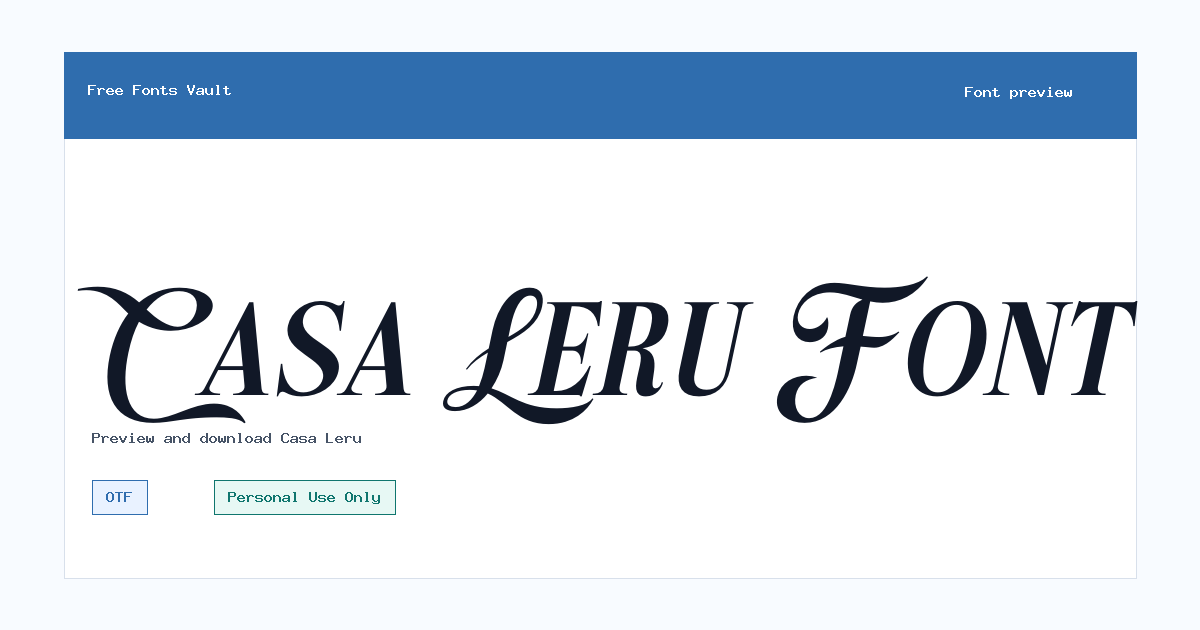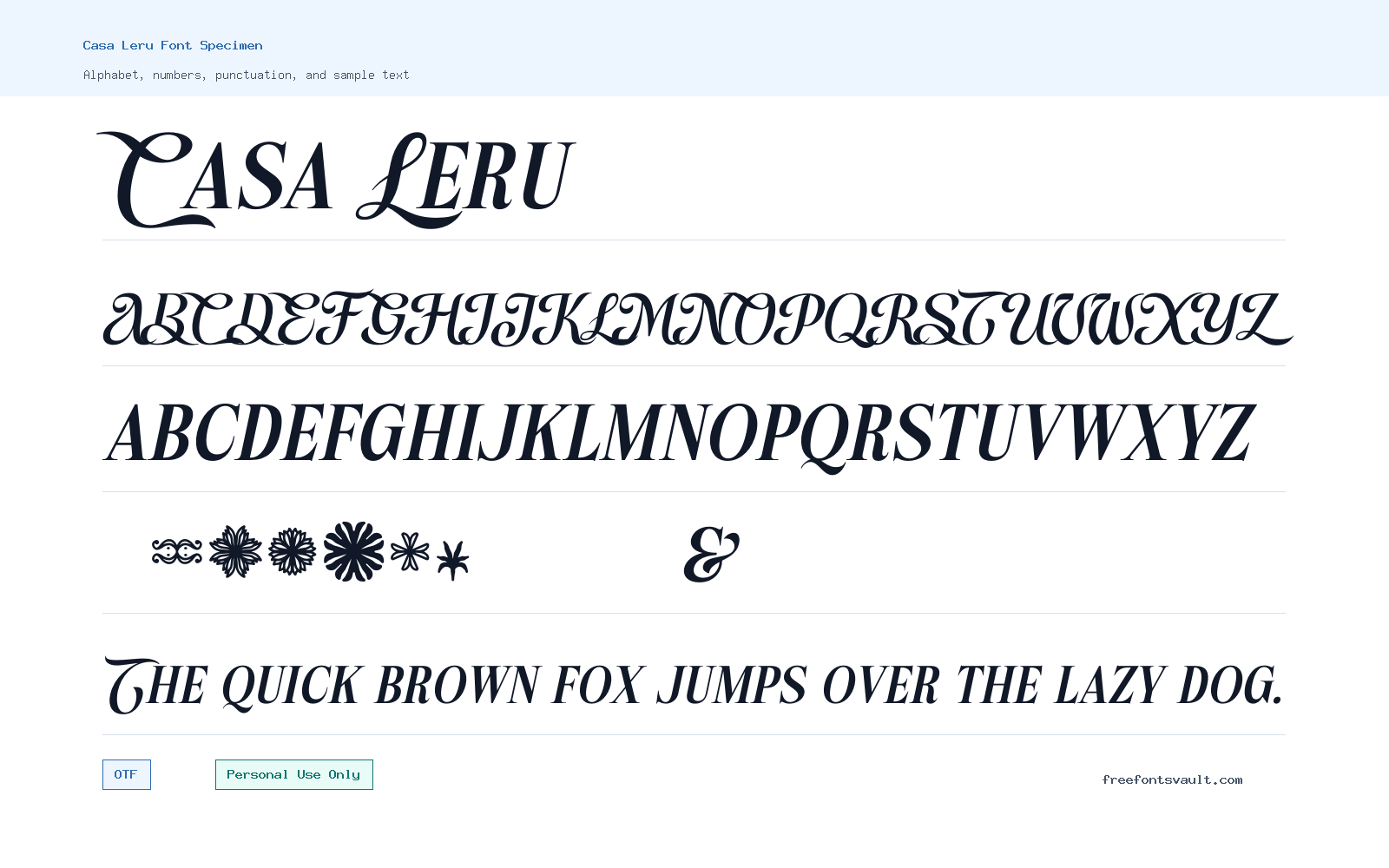
Casa Leru
Casa Leru font.
Casa Leru is an italic serif font with a graceful, slanted look that works best when you want text to feel refined without becoming too formal. It is suited to display settings such as titles, poster lines, branding drafts, invitations, and stylish web mockups.
About Casa Leru Font
Casa Leru has the character of a serif display face with an italic rhythm. The letterforms lean forward, giving words a sense of movement and elegance, while the serif structure keeps the font grounded and readable in short settings. Because the font file offered is an OTF italic style at regular weight, it is most useful for headlines, names, quotes, labels, and other short pieces of text rather than long paragraphs. Try it where a plain roman serif feels too static, but avoid relying on it for dense body copy where italic forms can slow reading.
For design work, Casa Leru can be a good choice for boutique-style logo concepts, editorial poster titles, mood boards, social graphics, packaging mockups, stationery previews, and website hero text. It should be tested at the exact size you plan to use, especially for thin details, spacing, and punctuation. If you use it in a logo draft, check the license first before presenting it for paid or commercial use. For pairing, keep the companion font simple: a clean sans serif can balance the decorative italic feel, while a quiet text serif can work for longer supporting copy. Avoid pairing it with another highly stylized script or ornate display font unless the layout has very little text.
- Italic serif style with a refined, forward-leaning appearance for short display text.
- Regular weight style, useful for titles, names, quotes, and elegant branding drafts.
- Works best in controlled layouts where spacing, contrast, and size can be adjusted.
- Logo concepts and brand mood boards that need an elegant serif accent.
- Posters, quote graphics, and social media headings with short text.
- Invitations, stationery previews, labels, and packaging mockups.
- Website hero sections and editorial-style web mockups.
- Font testing, typography practice, and personal design experiments.
Use Casa Leru where the font can be shown at a comfortable size. It is likely to perform best in short phrases, names, and display text. Test uppercase and lowercase combinations, check spacing around narrow letters, and preview it on both light and dark backgrounds. For web mockups, consider using it as a headline accent with a simpler font for navigation, buttons, and paragraph text.
Who designed Casa Leru?
Casa Leru is credited to Putu Dody Permana of Hishand Studio.
What kind of font is Casa Leru?
Casa Leru is an italic serif font. It has a slanted, elegant look that is better suited to display text than long paragraphs.
What fonts pair well with Casa Leru?
Pair it with a clean sans serif for modern layouts or a restrained text serif for editorial designs. Keep the supporting font simple so Casa Leru remains the main visual accent.
Is Casa Leru good for body text?
It is better for short display text. Italic serif fonts can become tiring in long reading, so use a more neutral font for paragraphs.